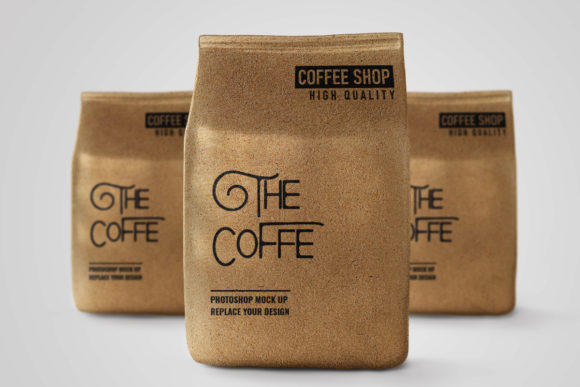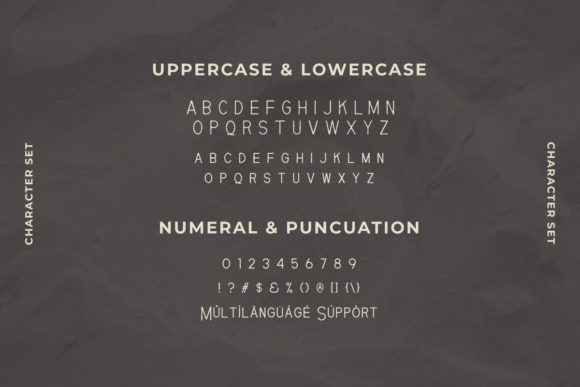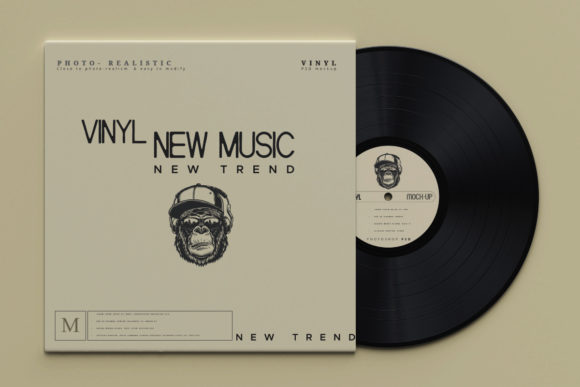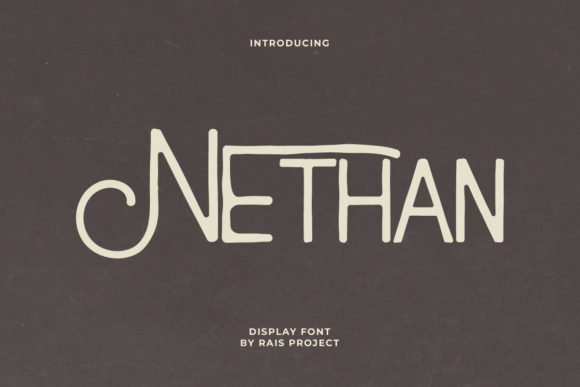
Introduction to Nethan Font
Nethan is a distinct and vintage styled display font.
Featuring the perfect amount of class, this font will easily make your designs come to life The only limit is your imagination.